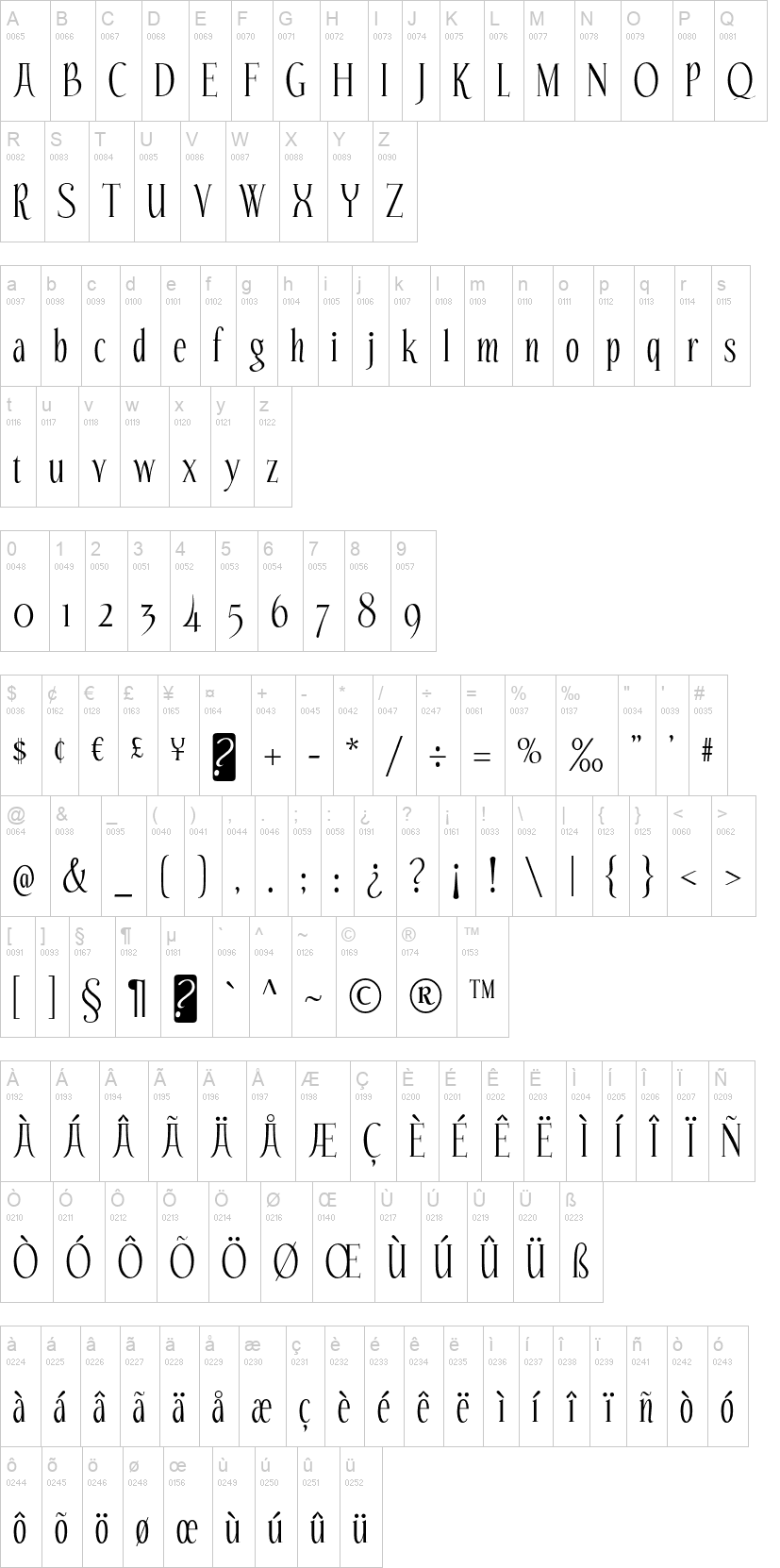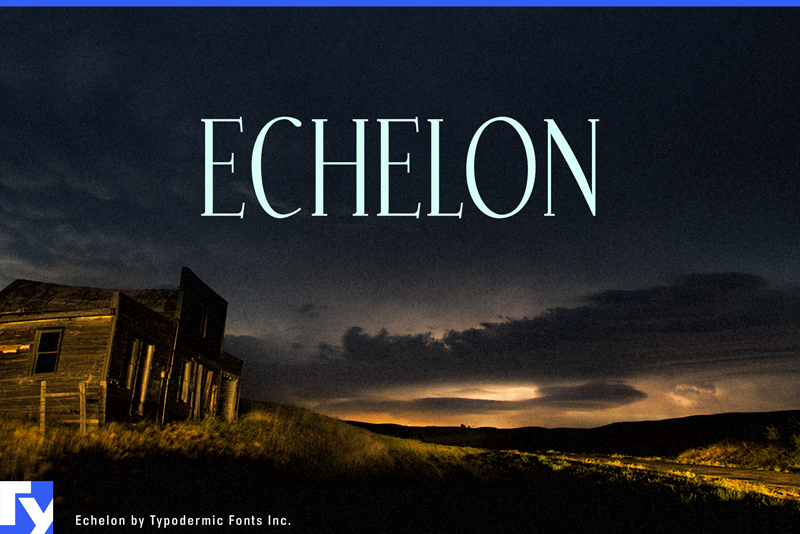
Echelon It.otfNote of the authorEchelon is a compact titling typeface. Its delicate lines and distinctive dimensions will lend your message a lot of personality and flair. Regular and Italic versions of Echelon are available. Most Latin-based European writing systems are supported, including the following languages. Afaan Oromo, Afar, Afrikaans, Albanian, Alsatian, Aromanian, Aymara, Bashkir (Latin), Basque, Belarusian (Latin), Bemba, Bikol, Bosnian, Breton, Cape Verdean, Creole, Catalan, Cebuano, Chamorro, Chavacano, Chichewa, Crimean Tatar (Latin), Croatian, Czech, Danish, Dawan, Dholuo, Dutch, English, Estonian, Faroese, Fijian, Filipino, Finnish, French, Frisian, Friulian, Gagauz (Latin), Galician, Ganda, Genoese, German, Greenlandic, Guadeloupean Creole, Haitian Creole, Hawaiian, Hiligaynon, Hungarian, Icelandic, Ilocano, Indonesian, Irish, Italian, Jamaican, Kaqchikel, Karakalpak (Latin), Kashubian, Kikongo, Kinyarwanda, Kirundi, Kurdish (Latin), Latvian, Lithuanian, Lombard, Low Saxon, Luxembourgish, Maasai, Makhuwa, Malay, Maltese, Māori, Moldovan, Montenegrin, Ndebele, Neapolitan, Norwegian, Novial, Occitan, Ossetian (Latin), Papiamento, Piedmontese, Polish, Portuguese, Quechua, Rarotongan, Romanian, Romansh, Sami, Sango, Saramaccan, Sardinian, Scottish Gaelic, Serbian (Latin), Shona, Sicilian, Silesian, Slovak, Slovenian, Somali, Sorbian, Sotho, Spanish, Swahili, Swazi, Swedish, Tagalog, Tahitian, Tetum, Tongan, Tshiluba, Tsonga, Tswana, Tumbuka, Turkish, Turkmen (Latin), Tuvaluan, Uzbek (Latin), Venetian, Vepsian, Võro, Walloon, Waray-Waray, Wayuu, Welsh, Wolof, Xhosa, Yapese, Zapotec Zulu and Zuni.